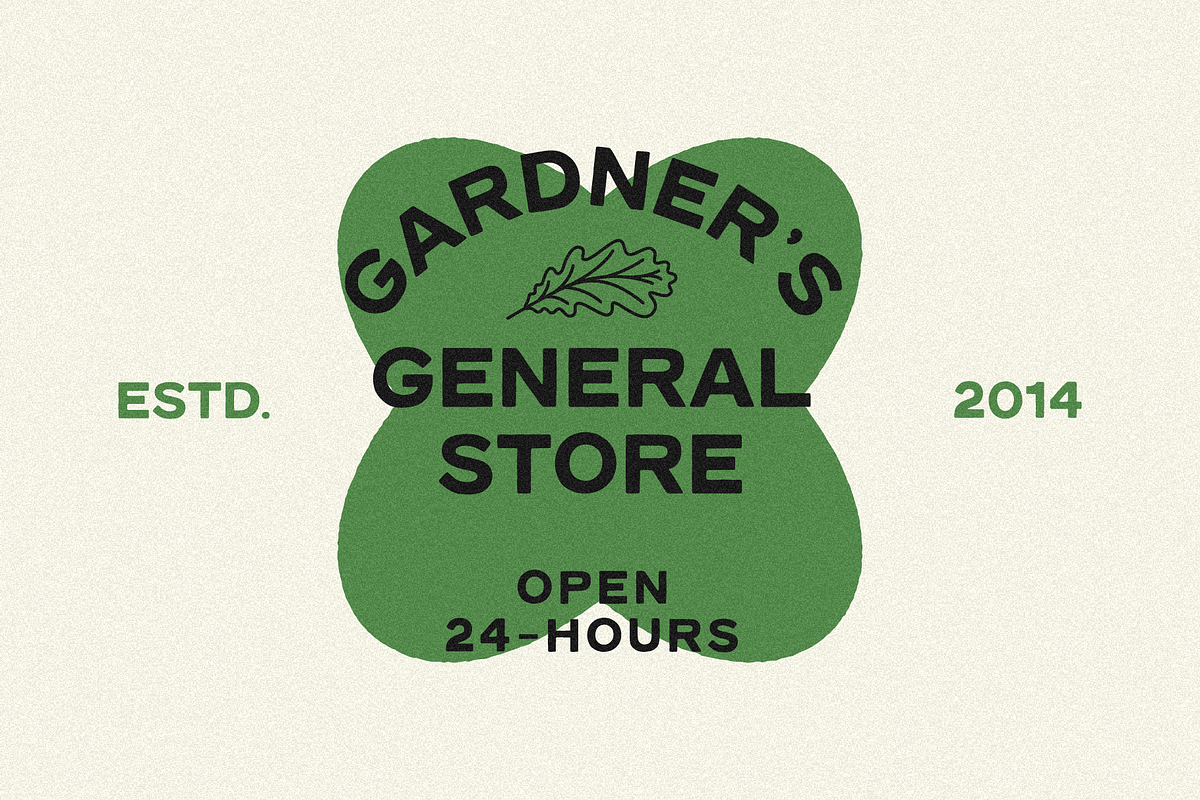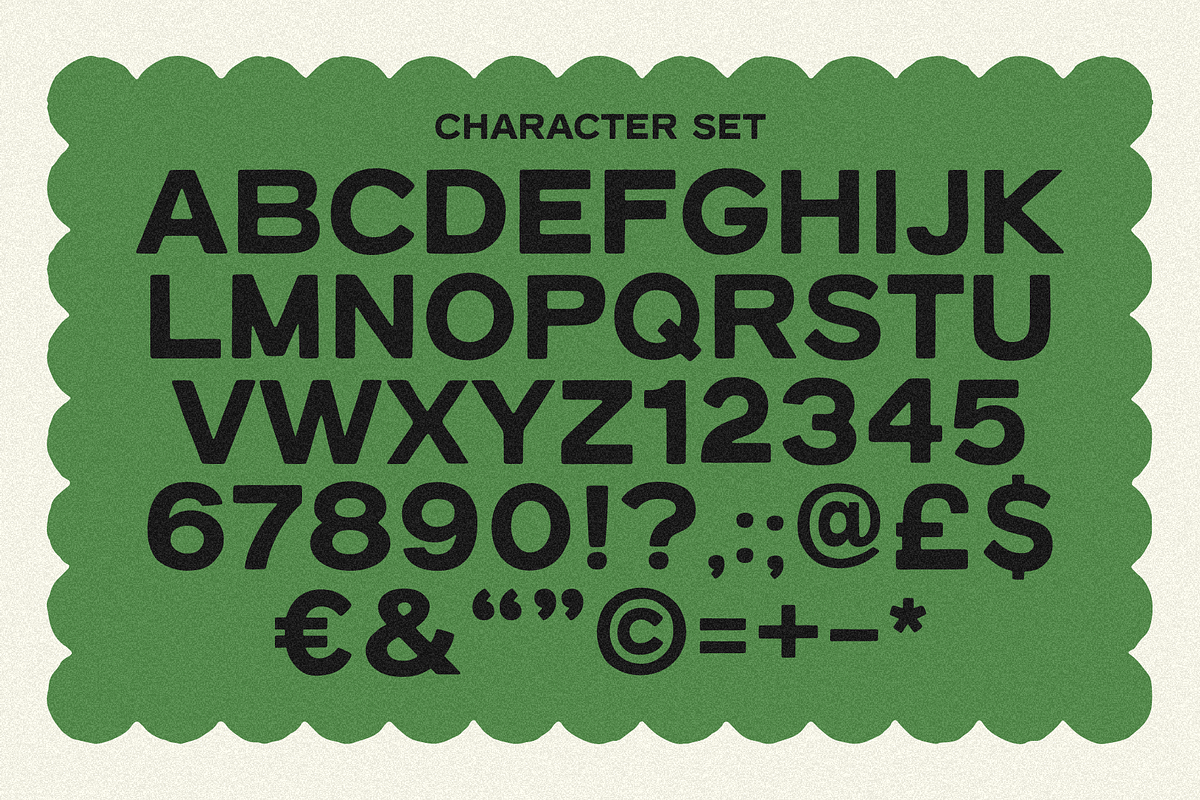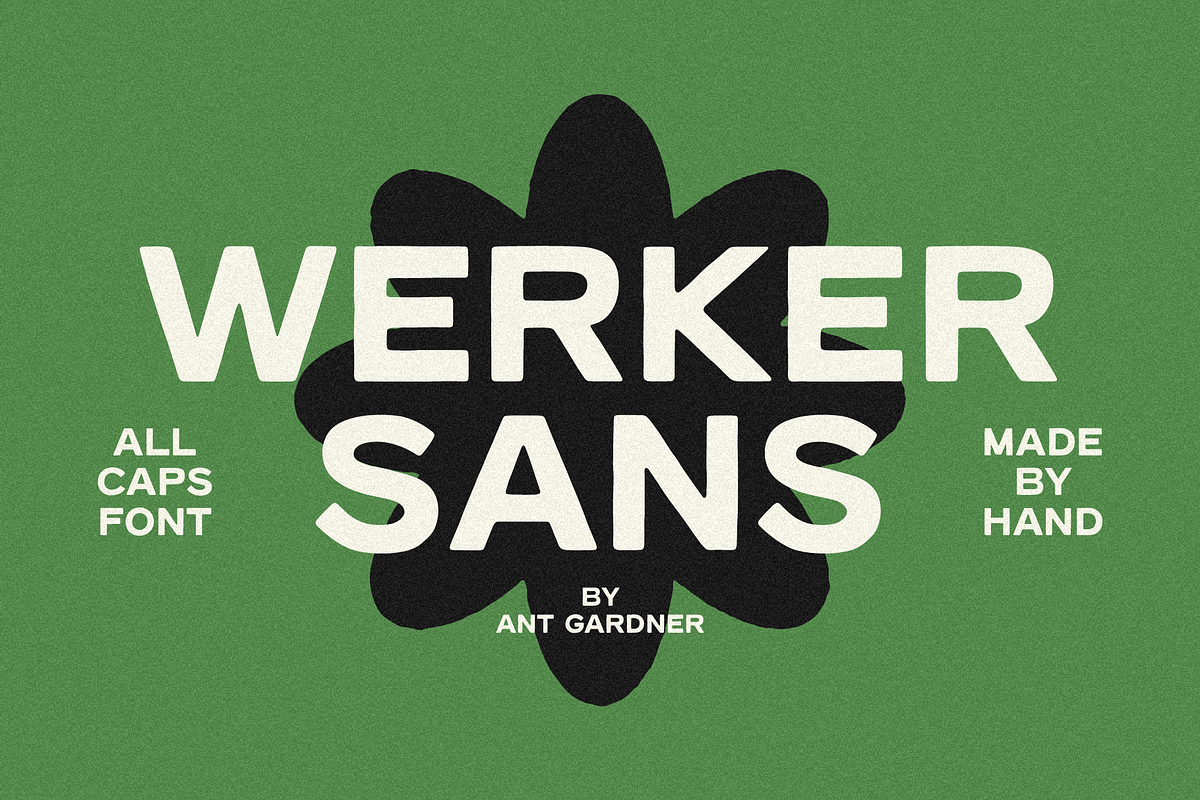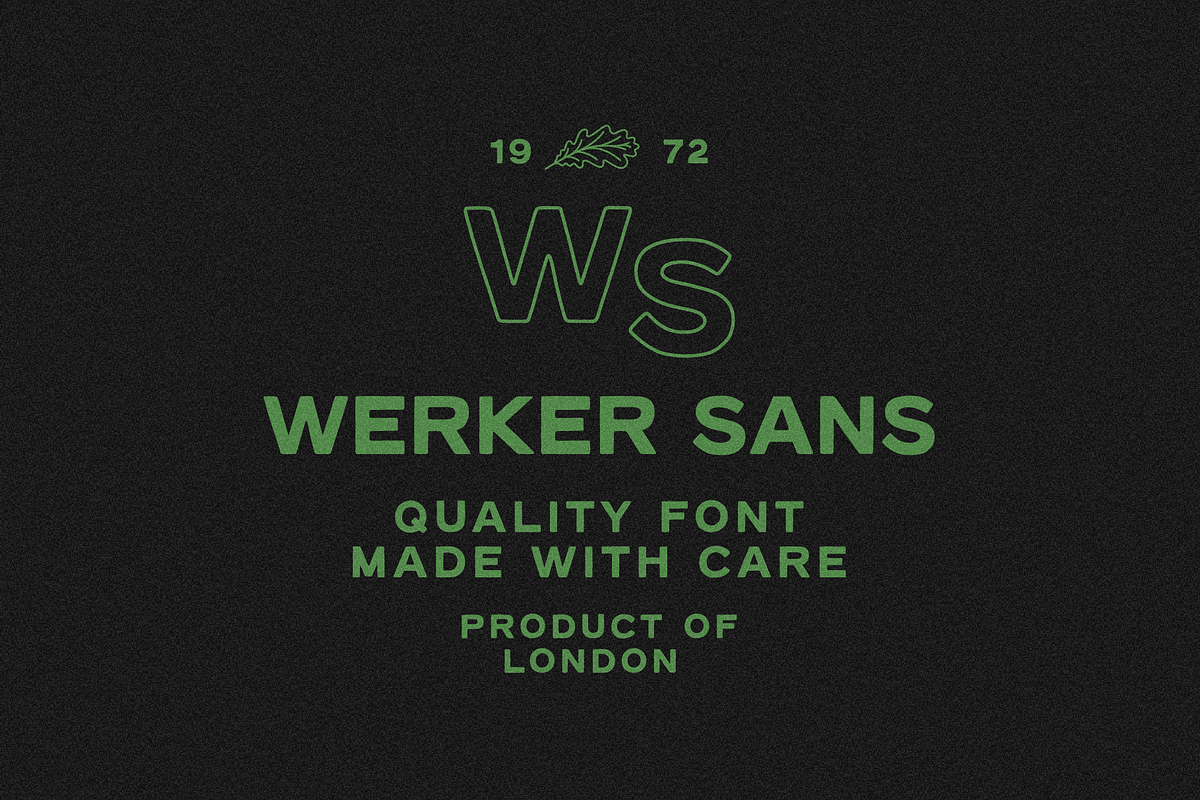
AG WERKER SANS
A hand drawn font for when you need something bold and simple. It’s all caps and comes with numbers plus all the essential punctuation.